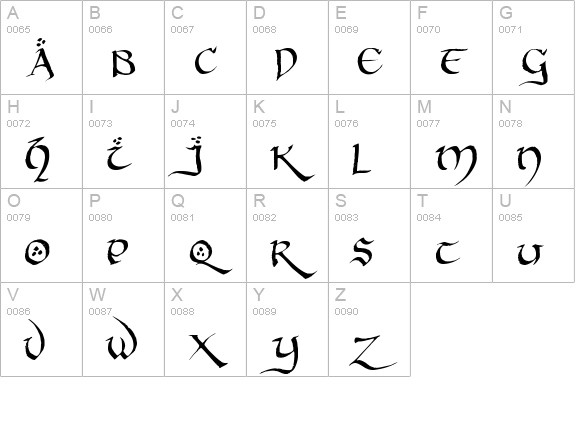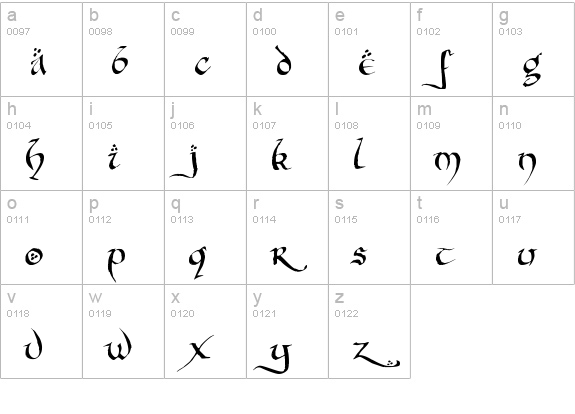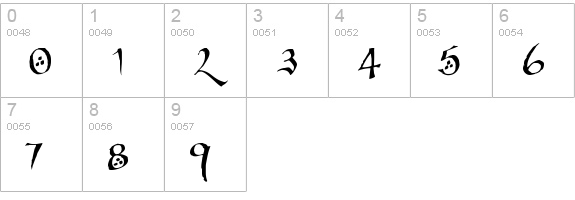
Hobbiton BrushhandHobbiton brush Font Details
Hobbiton Brushhand is a charming and whimsical brush font inspired by the quaint and picturesque village of Hobbiton from J.R.R. Tolkien's beloved fantasy world. This unique typeface captures the essence of the cozy, rustic aesthetic of hobbit homes with its playful strokes and organic feel. Perfect for adding a touch of magic and warmth to your designs, Hobbiton Brushhand is versatile and can be used for a variety of projects such as invitations, posters, branding, and more. Best of all, this delightful font is available for free download at FontsMarket.com, making it easily accessible for all designers and creatives looking to infuse their work with a touch of fantasy and whimsy. Embrace the charm of the Shire and bring a bit of Hobbiton into your projects with Hobbiton Brushhand font.